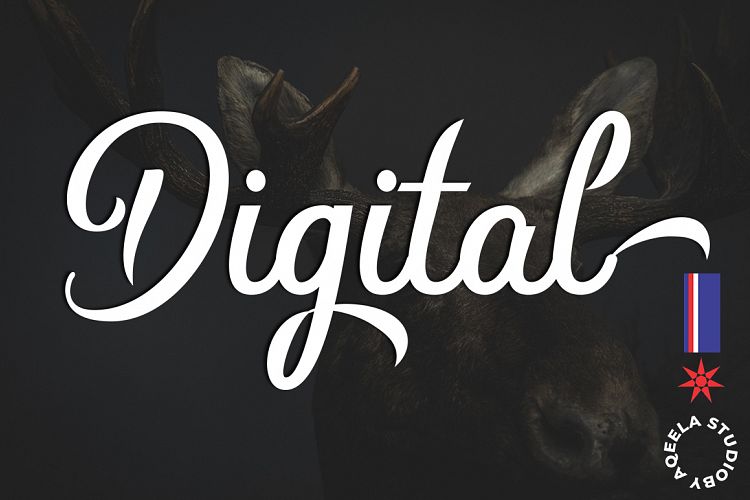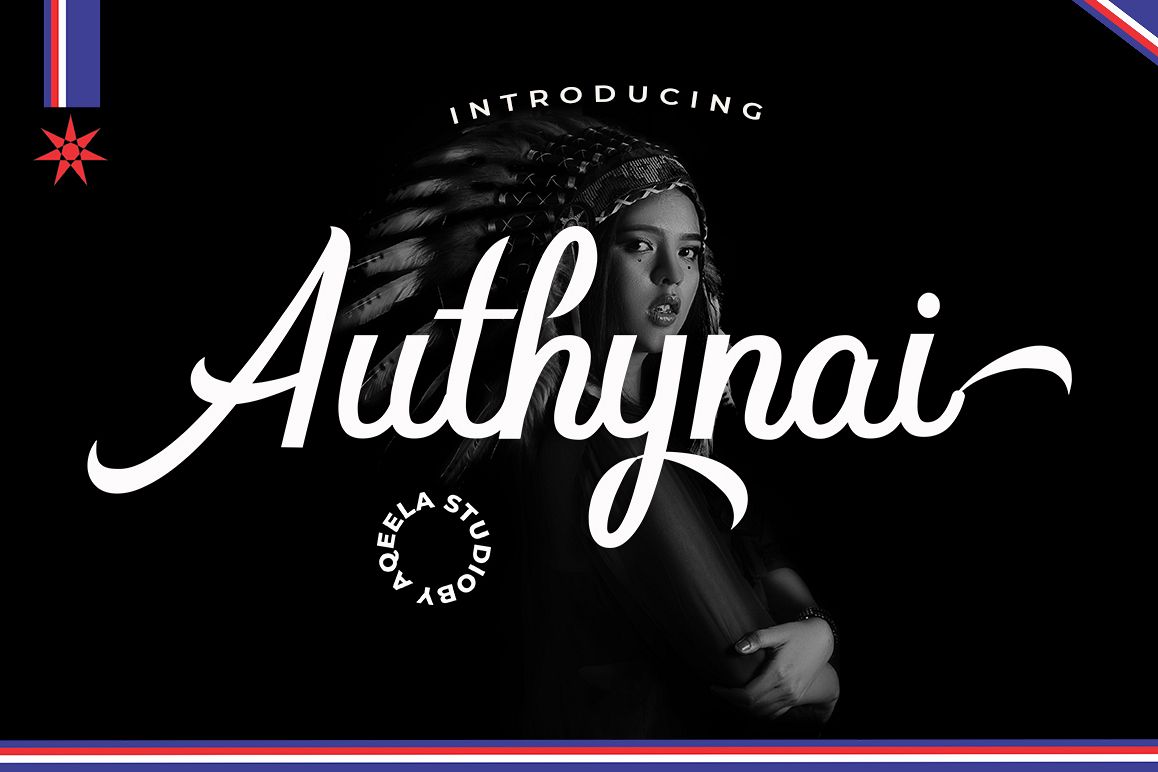
Authynai Script Font
Hello! Introduce the Authynai Script! This is a new font script. Authynai comes with a bold and clean style, in this font you will find a style that is firm, luxurious and simple. There are 257 flying machines in it! So you can use it freely as you wish and your design work needs!
With this style, this font will be suitable for logos, branding projects, household appliances design, product packaging, mugs, quotes, posters, shopping bags, logos, t-shirts, book covers, business cards, invitation cards, greeting cards and all other beautiful projects.
You can use this font for your work very easily. Because there are many features in it. Contains a complete set of small and large letters, punctuation, numbers, web fonts, and multilingual support. This font also includes several binders and an alternative style of Stylistic Set for those of you who have software that is able to work OpenType (Corel Draw / Photoshop / Illustrator / InDesign).